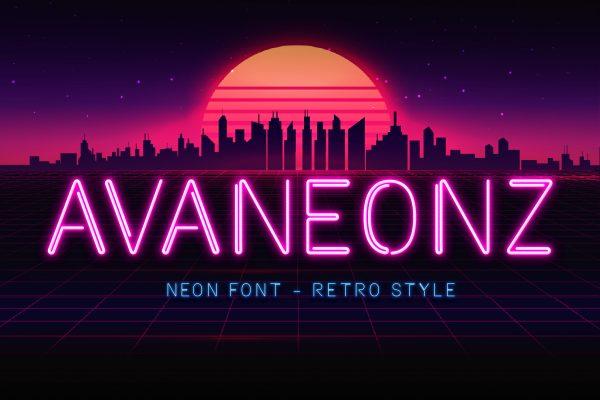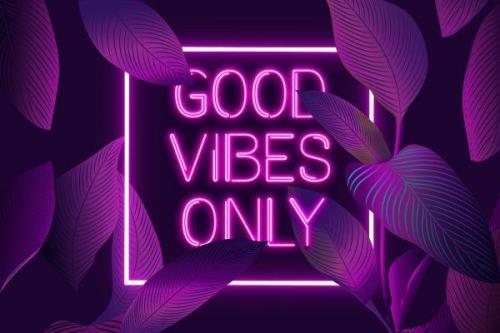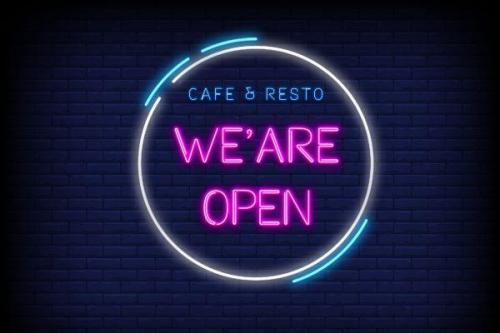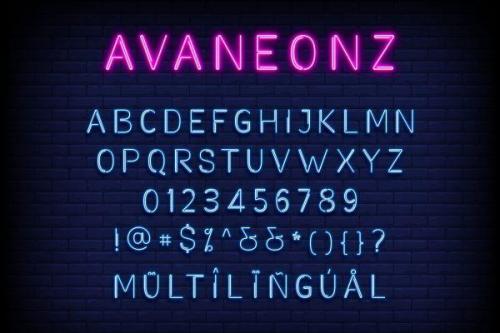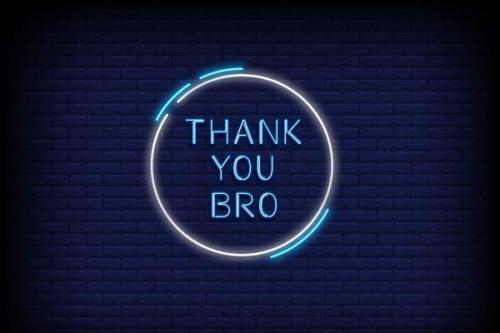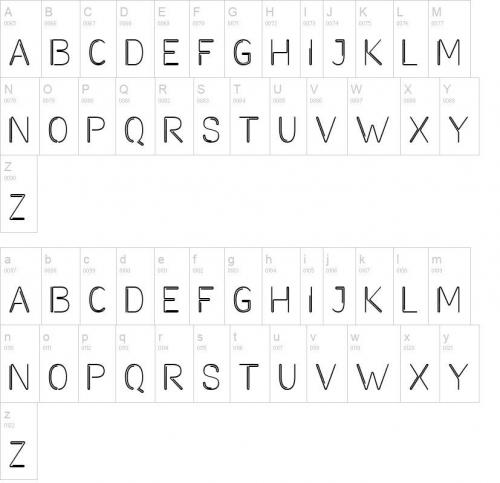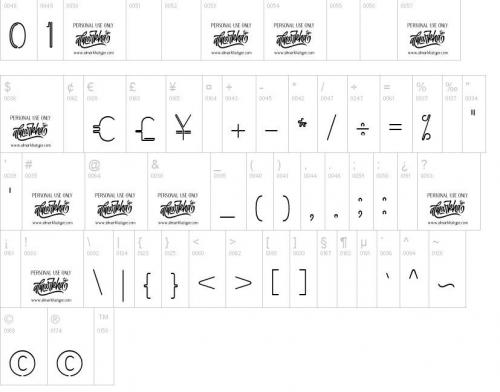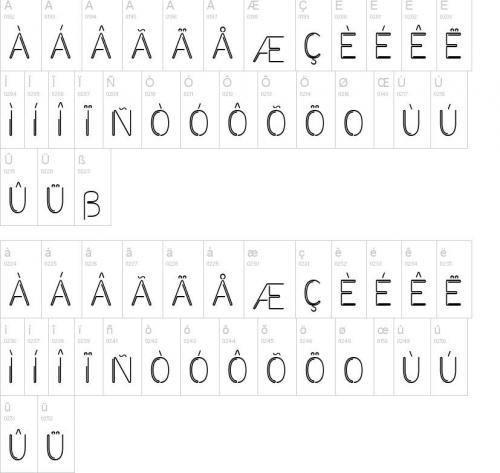
Avaneonz is a futuristic and simple lettered display font. Add this font to your favorite creative ideas and notice how it makes them come alive!
- Designer: Almarkhatype Studio